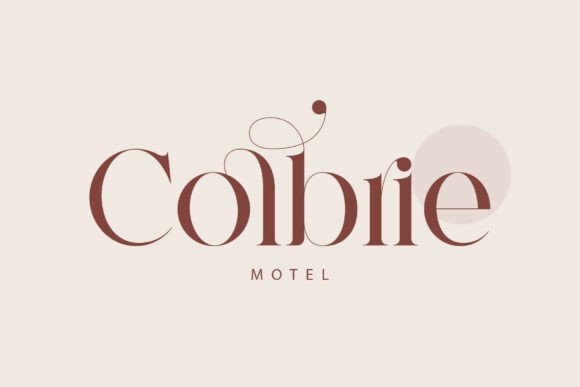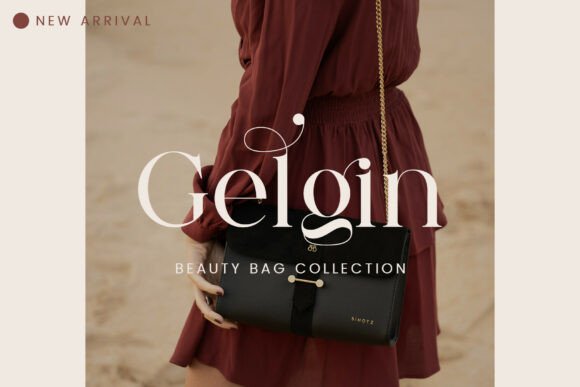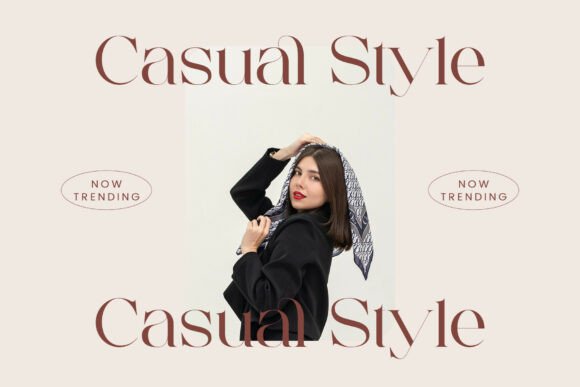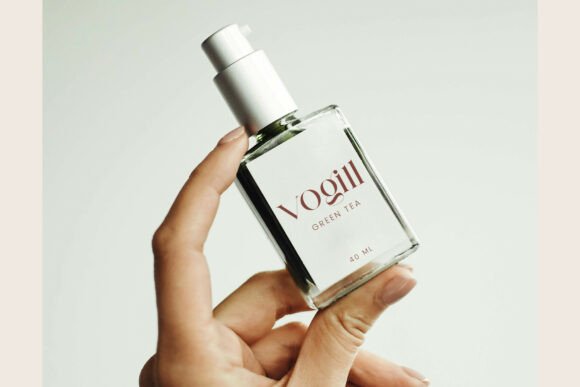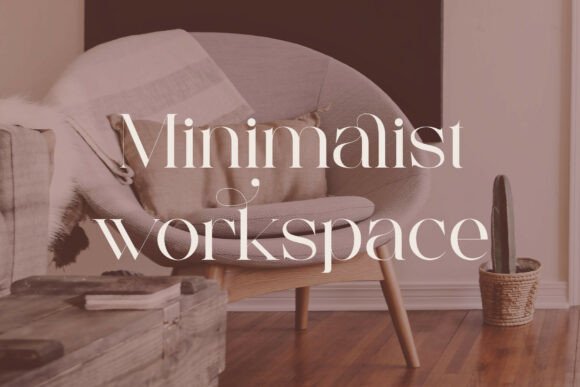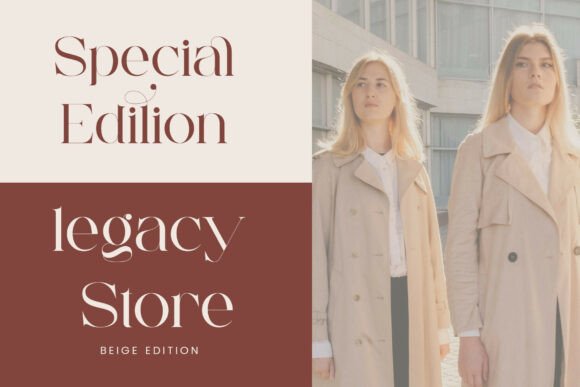
Introduction to Gotrie Font
Have you ever stumbled upon the perfect font for a creative project, only to realize it’s not quite fitting the tone you’re aiming for? This is a familiar struggle many designers face, and it’s where the Gotrie Font comes in – a stylish serif font that expertly blends classic elegance with contemporary refinement.
As a valuable design resource, the Gotrie Font offers a unique balance of timeless beauty and modern sophistication, making it an ideal choice for logos, editorials, invitations, and branding. Its finely crafted letterforms and balanced proportions deliver a polished touch that elevates any design, while its versatile style allows for seamless integration into various creative projects. Whether you’re working on a high-quality design or searching for a free download, the Gotrie Font is sure to provide the perfect combination of distinction and charm.
Key Features of Gotrie Font
- Unique, hand-drawn design with a minimalist aesthetic, ideal for creative projects requiring a touch of elegance.
- Perfect for use in creative projects requiring a high level of sophistication, such as branding, logos, and typography-based art.
Honest Review: Gotrie Font
As a designer, I’m always on the lookout for high-quality design resources that can elevate my creative projects. Recently, I stumbled upon the Gotrie Font, and I’m excited to share my honest review with you.
Here are some of the key features of the Gotrie Font:
- Clean and modern aesthetic
Limitations: ⚠️ While the Gotrie Font is a great resource, it’s worth noting that it may not be suitable for all design projects. The font’s limited character set and lack of bold/italic variants may be a drawback for designers who require more flexibility.
Overall, I’m impressed with the Gotrie Font’s quality and versatility. While it may have some limitations, it’s a great addition to any designer’s toolkit, especially for creative projects that require a modern and professional look.
The Gotrie Font is commonly used in logos, branding materials, and social media graphics. Its high-quality design makes it a popular choice for creative projects.